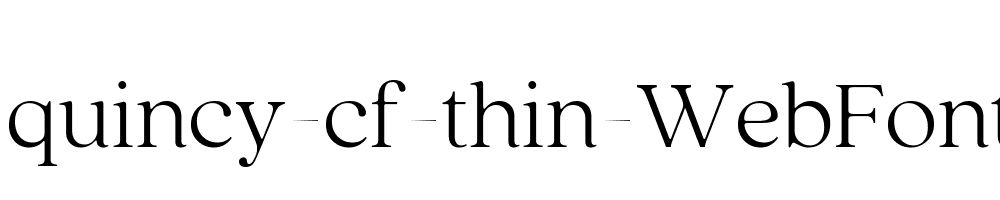
About quincy-cf-thin-WebFont
The quincy-cf-thin-WebFont has a modern and sleek design, with a thin weight that gives it an airiness and delicacy perfect for elegant projects. The font showcases beautiful apertures and subtle curves in the bowls, creating a harmonious elegance that is perfect for high-end branding. The ascenders and descenders are tall and slightly exaggerated, adding a touch of sophistication to the overall structure. The closed counters offer a clean and refined look, while the gentle arcs and spurs give the font a stylish and fashionable appeal. The font features minimal serifs, further enhancing its contemporary and fashionable aesthetic. Overall, the quincy-cf-thin-WebFont embodies a classic yet progressive vibe, making it the ideal choice for projects that require a balance of tradition and innovation.